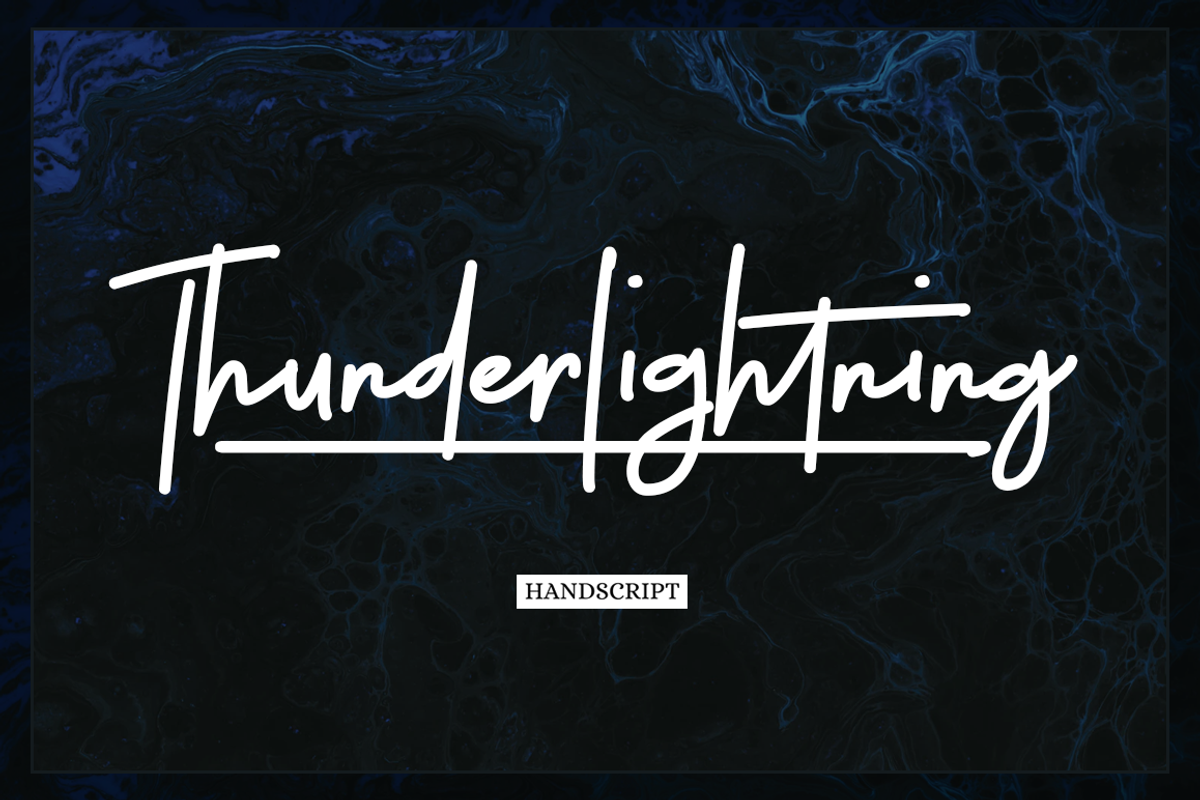
Thunderlightning Script Font Free Download is a dynamic and bold script typeface that combines energetic strokes with a strong, confident feel. Perfect for high-impact branding, event posters, sports team logos, and modern digital art, Thunderlightning brings power and flair to any design.
The dramatic curves, lightning-like flourishes, and bold design give it an electrifying, rebellious vibe—ideal for projects that need to make a statement. Whether you're designing for music events, extreme sports, or modern lifestyle brands, Thunderlightning adds energy and edge to your typography.